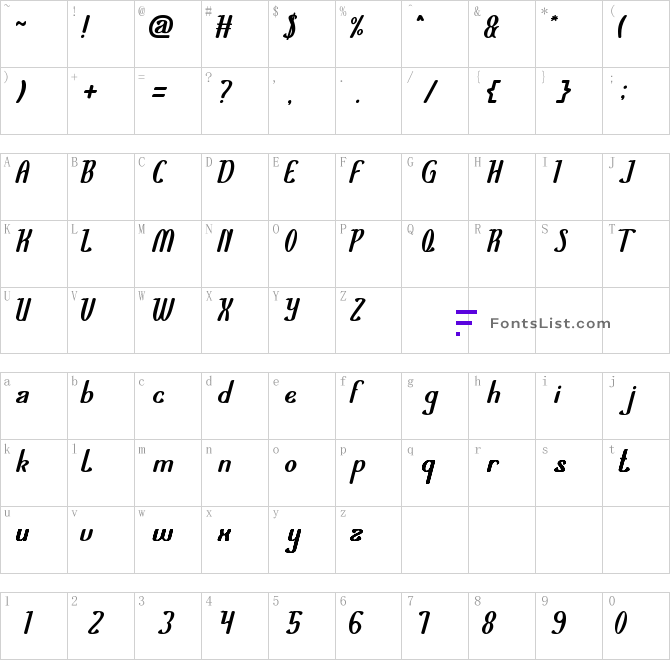
- Font Name:Air Planet
Air-Planet.ttf is a very beautiful artistic font, Air-Planet.ttf is widely used in the design and printing of various books and pictures,Air-Planet.ttf has a strong visual impact,Air-Planet.ttf is a commonly used font in newspapers, magazines and books, and is used in posters, e-commerce Poster design, store design, logo design, font design and other fields.Air-Planet.